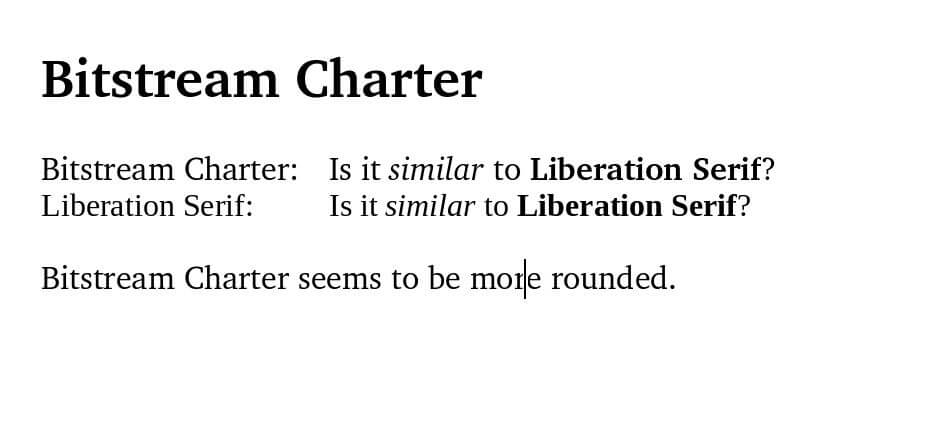
The Bitstream Charter Font is a serif typeface that resembles the Klavika font created by Matthew Carter in 1987 for Bitstream Inc. It is based on Pierre-Simon Fournier's characters from the 18th century.